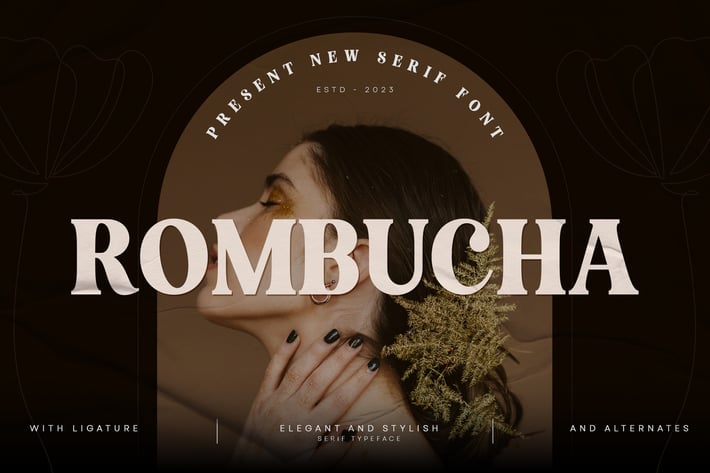
Rombucha - Elegant Serif Font
Rombucha is an elegant and stylish serif typeface that exudes sophistication and modern charm. Its refined letterforms and graceful serifs make it perfect for high-end branding, invitations, editorial designs, and any project that seeks to convey a sense of luxury. With its balanced proportions and distinctive character, Rombucha combines readability with a chic aesthetic, ensuring your message is communicated with flair and finesse. This versatile typeface is suitable for both print and digital applications, making it an essential choice for elegant designs.